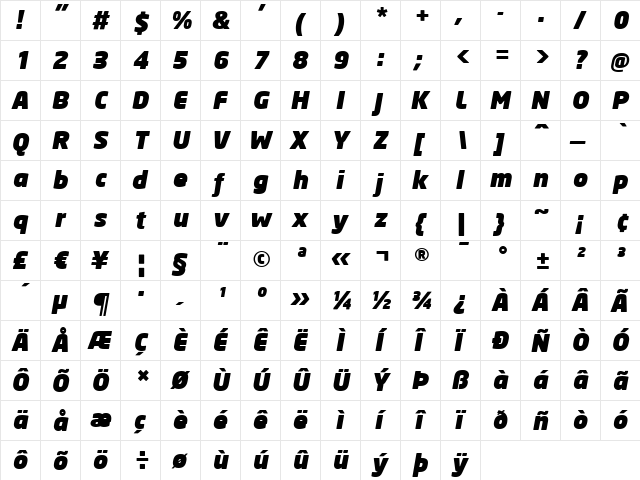
Neo Sans Ultra Italic Font Preview
Neo Sans Ultra Italic
Neo Sans Ultra Italic Font Details
Design Context for Neo Sans Typeface
Neo Sans is a composed and adaptable typeface that performs quietly and consistently across a wide range of design contexts. Its italic angle brings a sense of urgency and motion to the letterforms.
Pro Tip: Use Neo Sans for emphasis, pull quotes, and subheadings where its slanted energy can add rhythm to the layout.